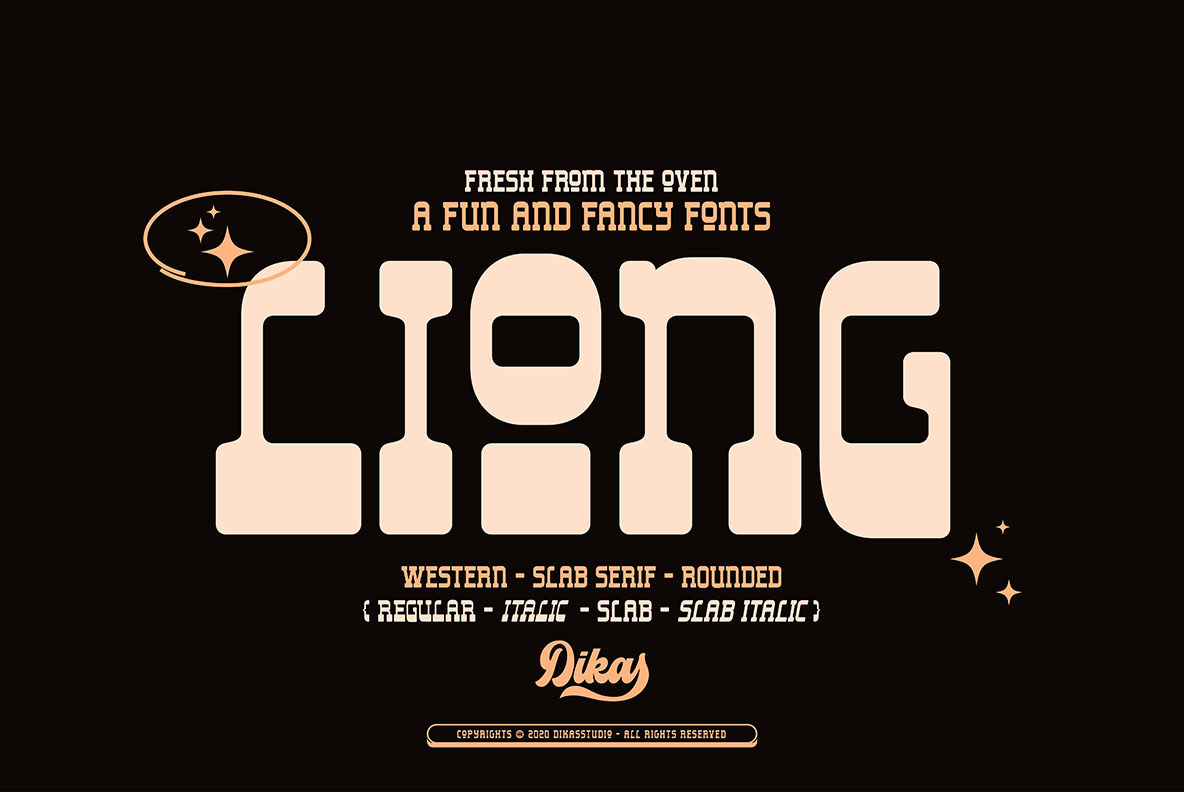
Liong - 4 Fonts Styles
Liong is a bold & retro slab serif typeface inspired by western typography signane, they have a contrast weight bar and slab with fun and fancy character. Liong comes with 4 style regular, italic, slab & slabitalic, perfect for logos, badges, typography and any retro design needs.
All caps character
Puntuation & Number
Multilingual Language